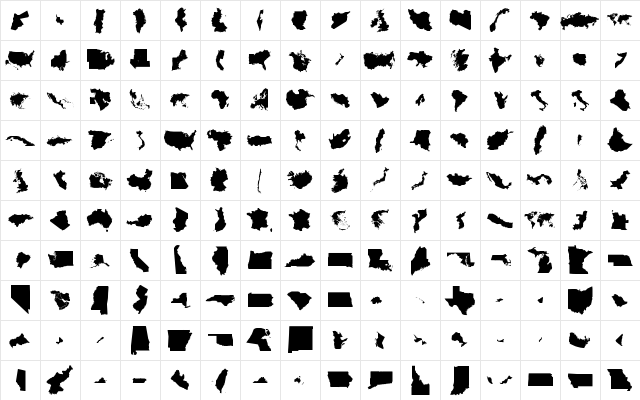
GeoBats Regular
Design Context for GeoBats Typeface
GeoBats takes a measured approach to typography — its balanced proportions and neutral character make it a reliable workhorse for both digital and print work.